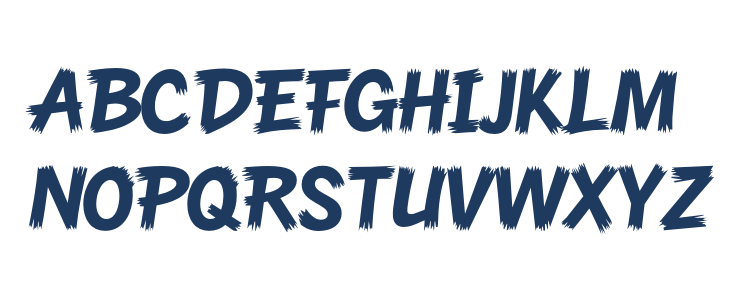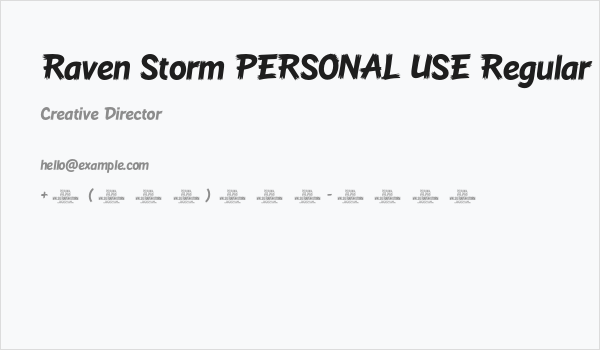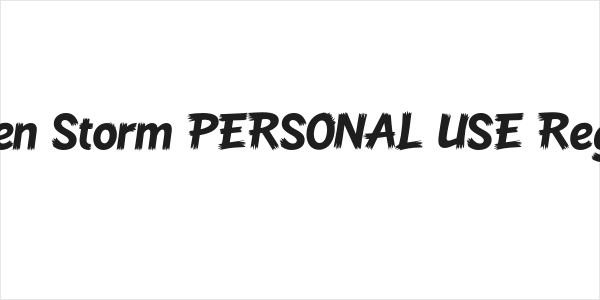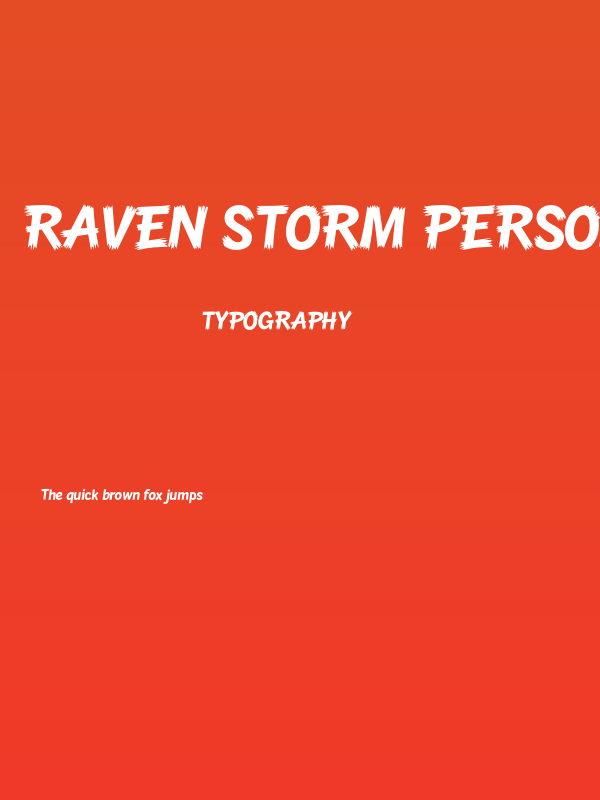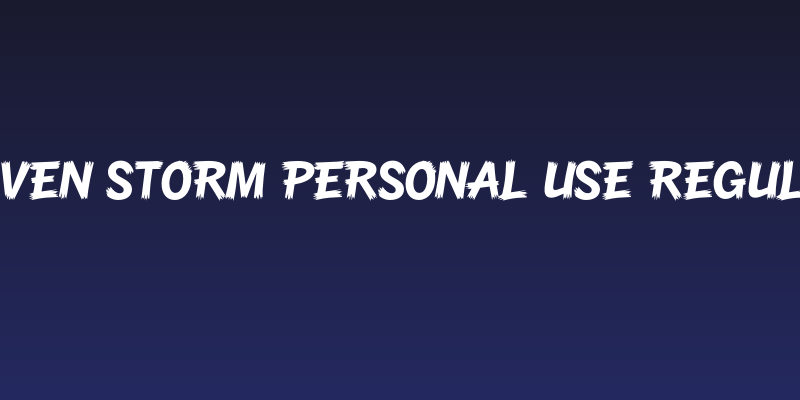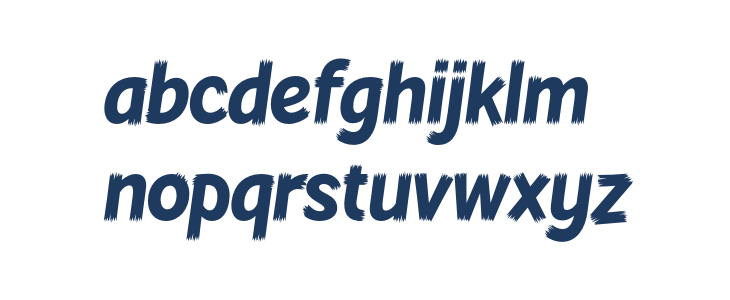
Raven Storm PERSONAL USE Regular Font
Raven Storm PERSONAL USE Regular Description
A bold, italicized display font with jagged, brush-like edges, giving a sense of motion and intensity. The characters are wide and dynamic, with irregular, spiked outlines that evoke a stormy or energetic atmosphere.
| Overall Style | Decorative, Energetic, Modern |
| Use Case | Headlines, Posters, Logos, Event Promotions |
| Proposed Projects | Posters, event flyers, comic book titles, video game graphics, horror or action movie branding, attention-grabbing headlines. |